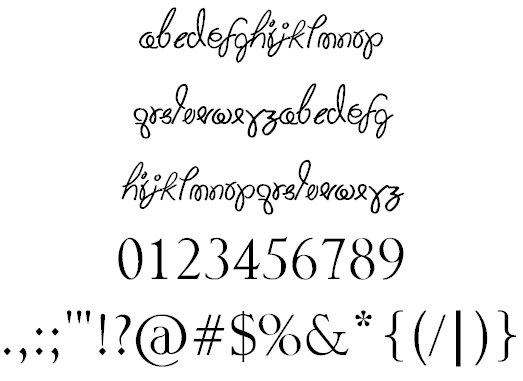
Free Hot Pink Font
Featuring a free hot pink font. This free typeface file was found from the amazing source called Font Space. This is absolutely fancy font so you can easily make world-class designs.